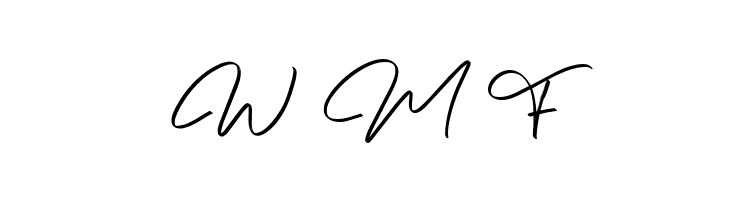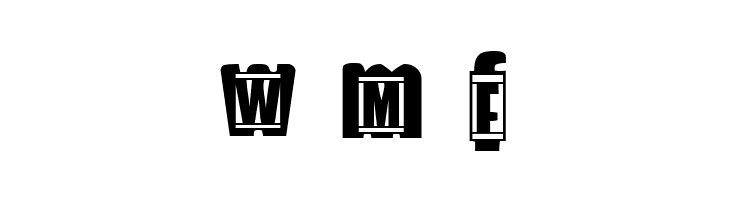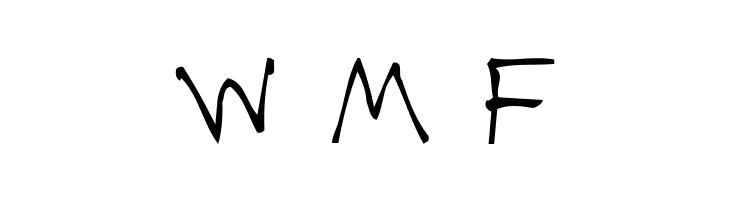
A sophisticated and fluid script typeface with elegant, connected letters.
A bold, whimsical display font with irregular, energetic shapes.
A playful, handwritten font with a casual and whimsical style.